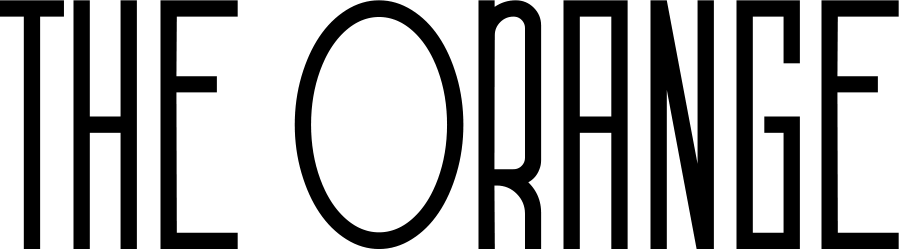
The Orange Font
The Orange is a sans serif font that reaches with good news; three different styles, which can expand your selection. Although it leaves out some numbers still it is in the lead. It can convey a sense of jaunty, dynamic, and intimacy to the audience, so it would be appropriate to design graphic works such as posters, packages, and business cards.